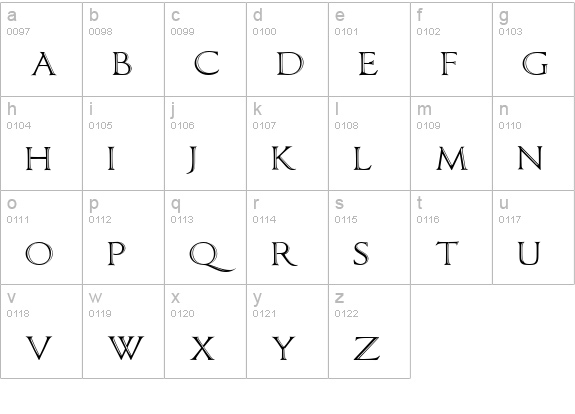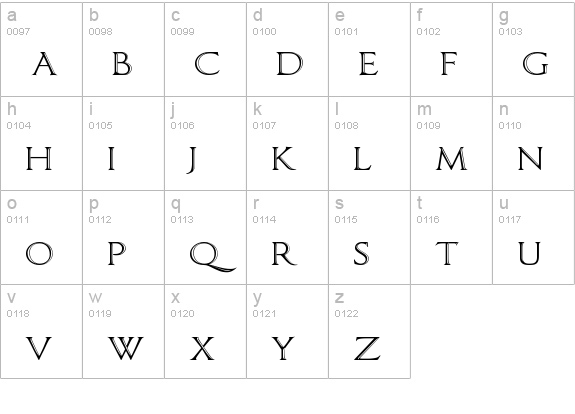
ChocolateBoxDecorative Font Details
Indulge in the decadent sweetness of ChocolateBoxDecorative font, a delightful typeface that exudes charm and elegance. With its intricate swirls and delicate curves, this font is perfect for adding a touch of sophistication to any project. The rich, chocolate-inspired design of ChocolateBoxDecorative will evoke a sense of luxury and indulgence, making your creations truly stand out. Best of all, ChocolateBoxDecorative font is available for free download at FontsMarket.com. Whether you're working on a branding project, invitations, or any other creative endeavor, this font will add a touch of class and style. Don't miss out on the opportunity to elevate your designs with this exquisite font – download ChocolateBoxDecorative today and let your creativity shine!